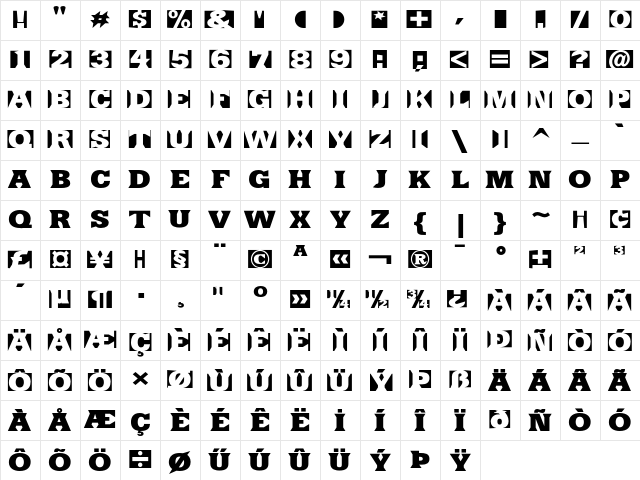
SinRazon Regular
Foundry: deFharo
Designer: defharo
SinRazon Family
Design Context for SinRazon
SinRazon is a composed and adaptable typeface that performs quietly and consistently across a wide range of design contexts.